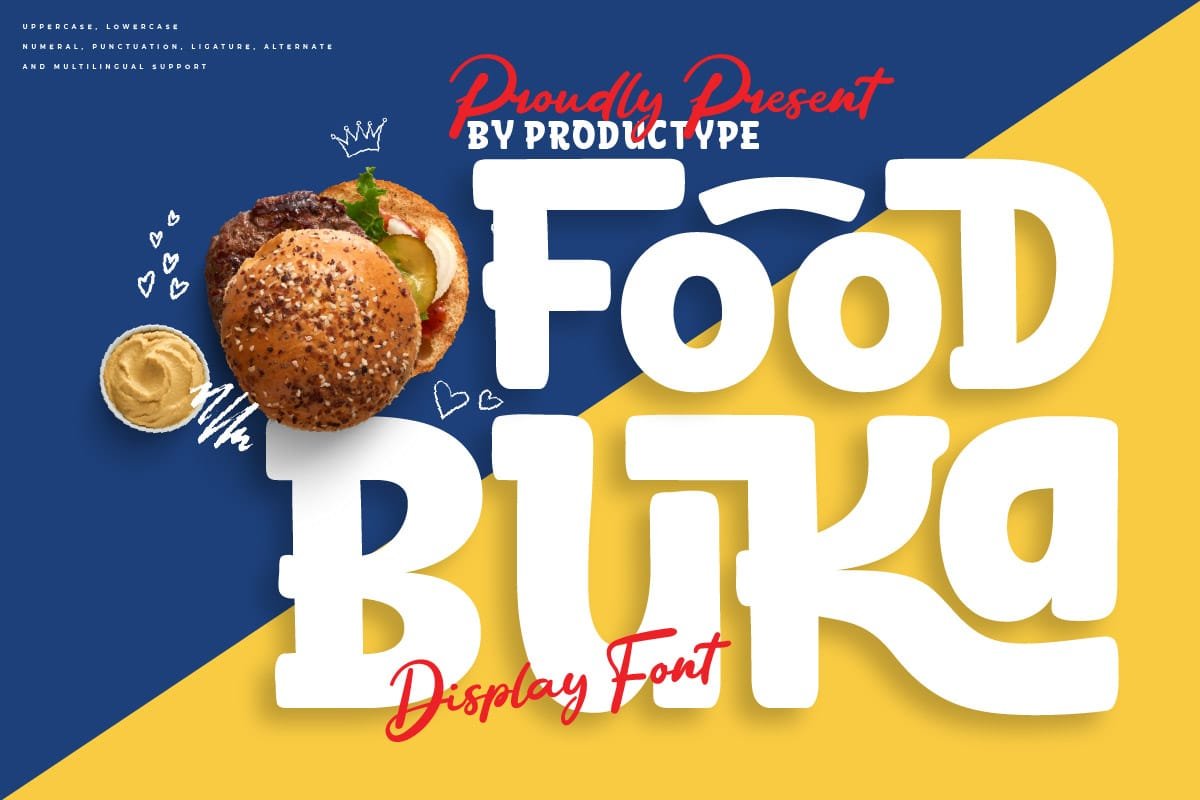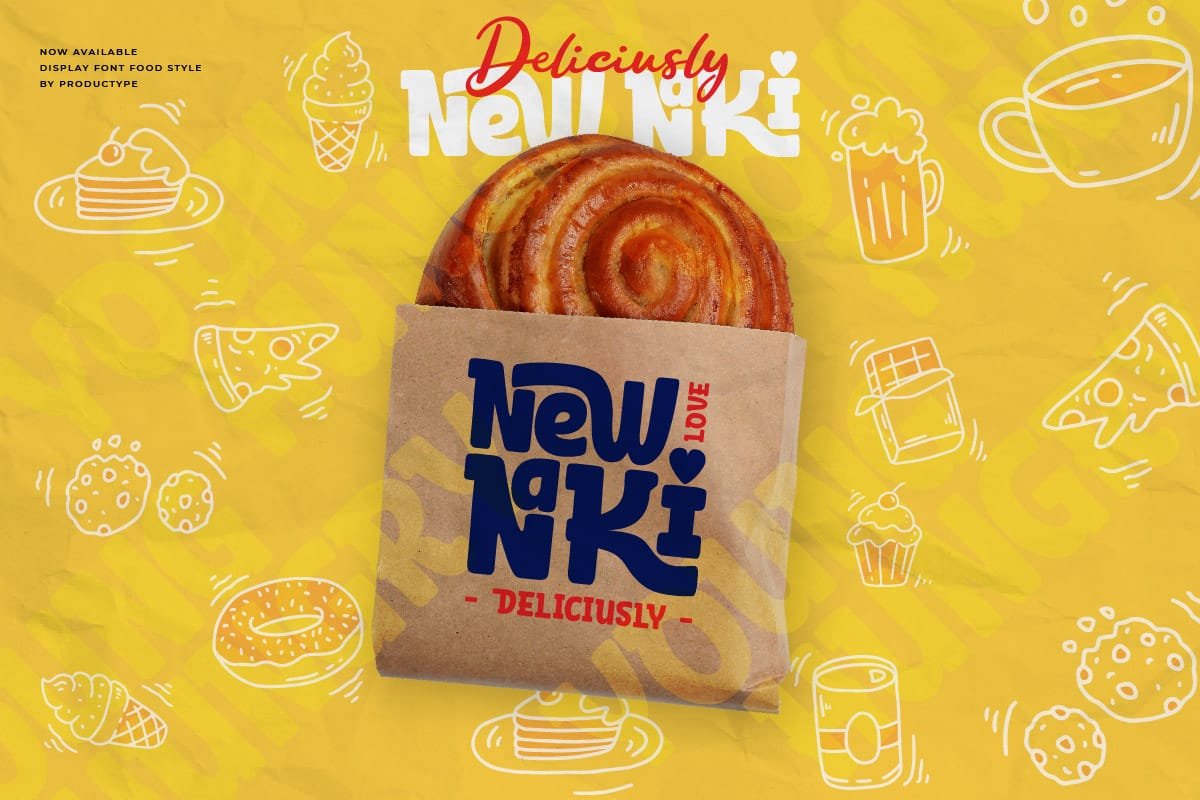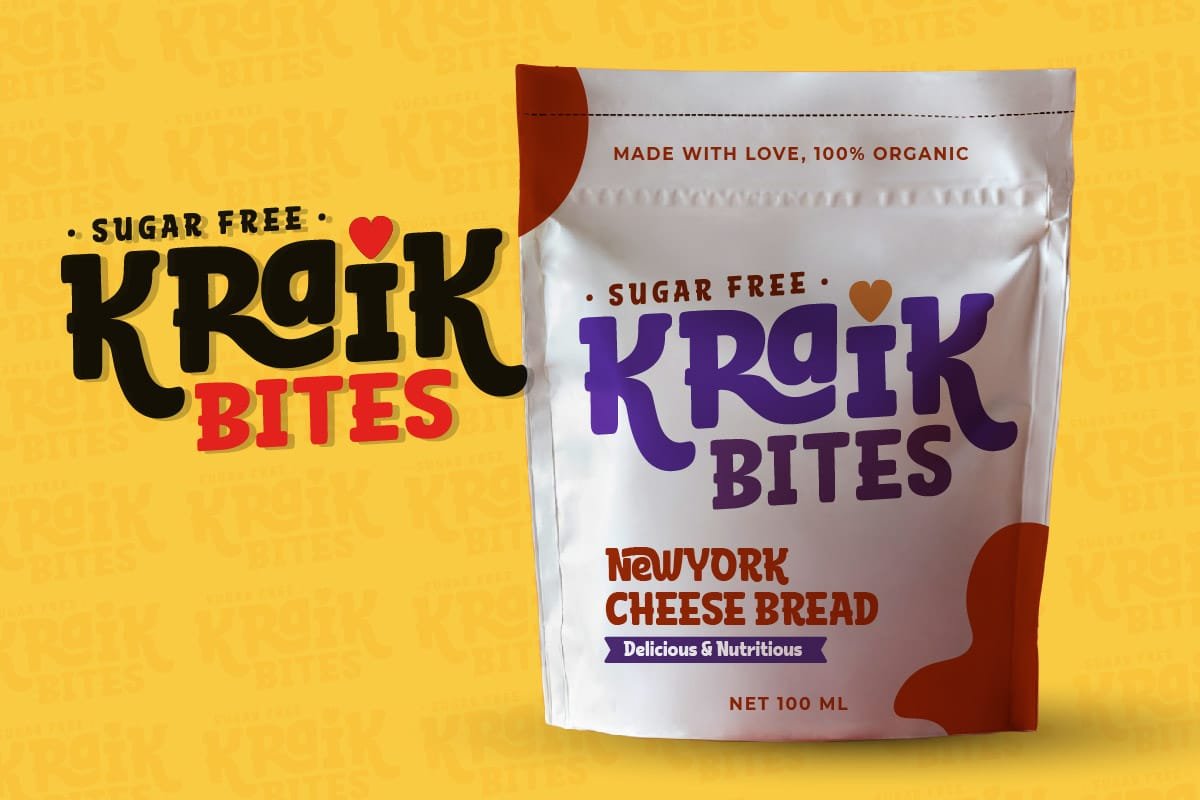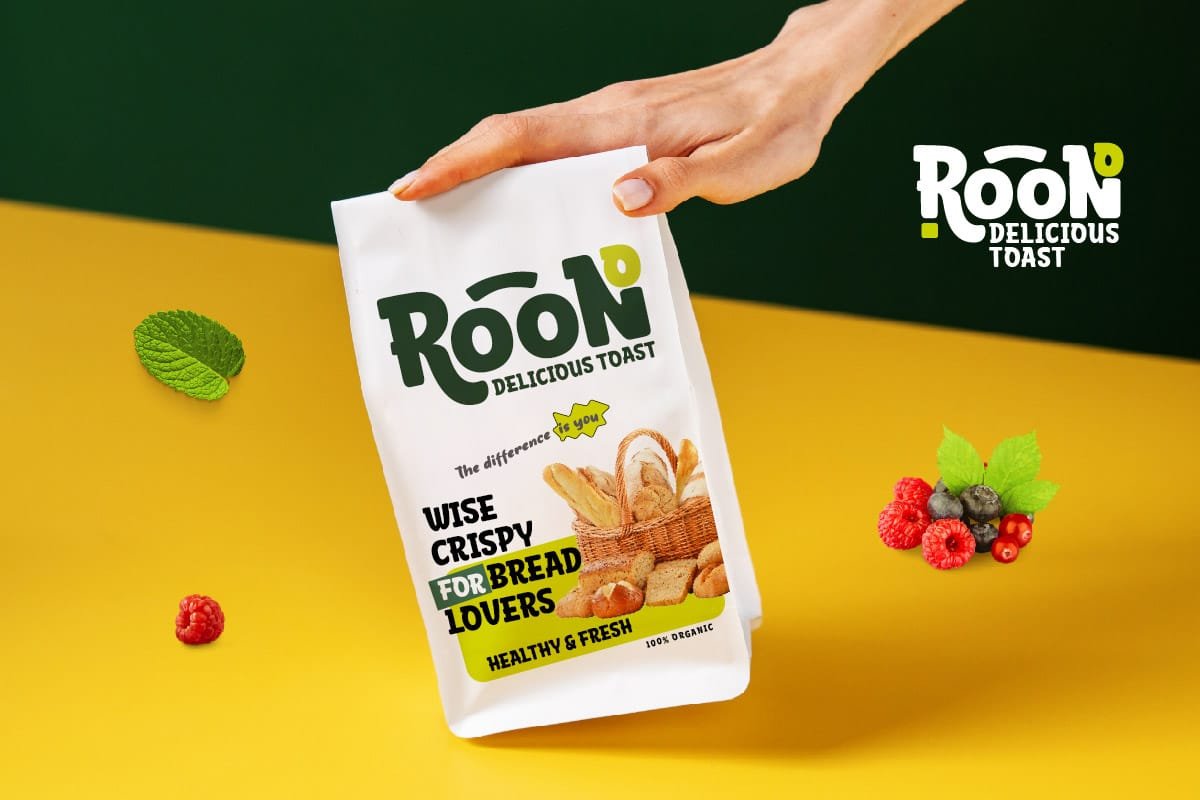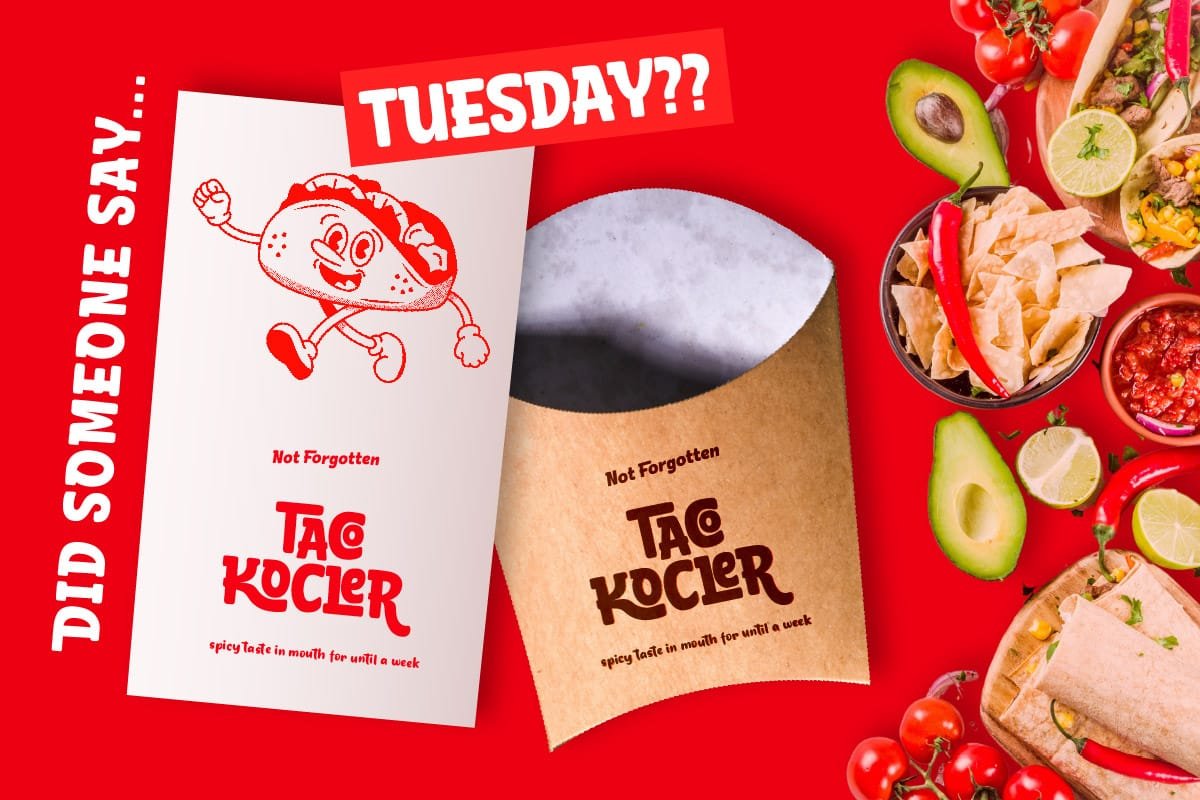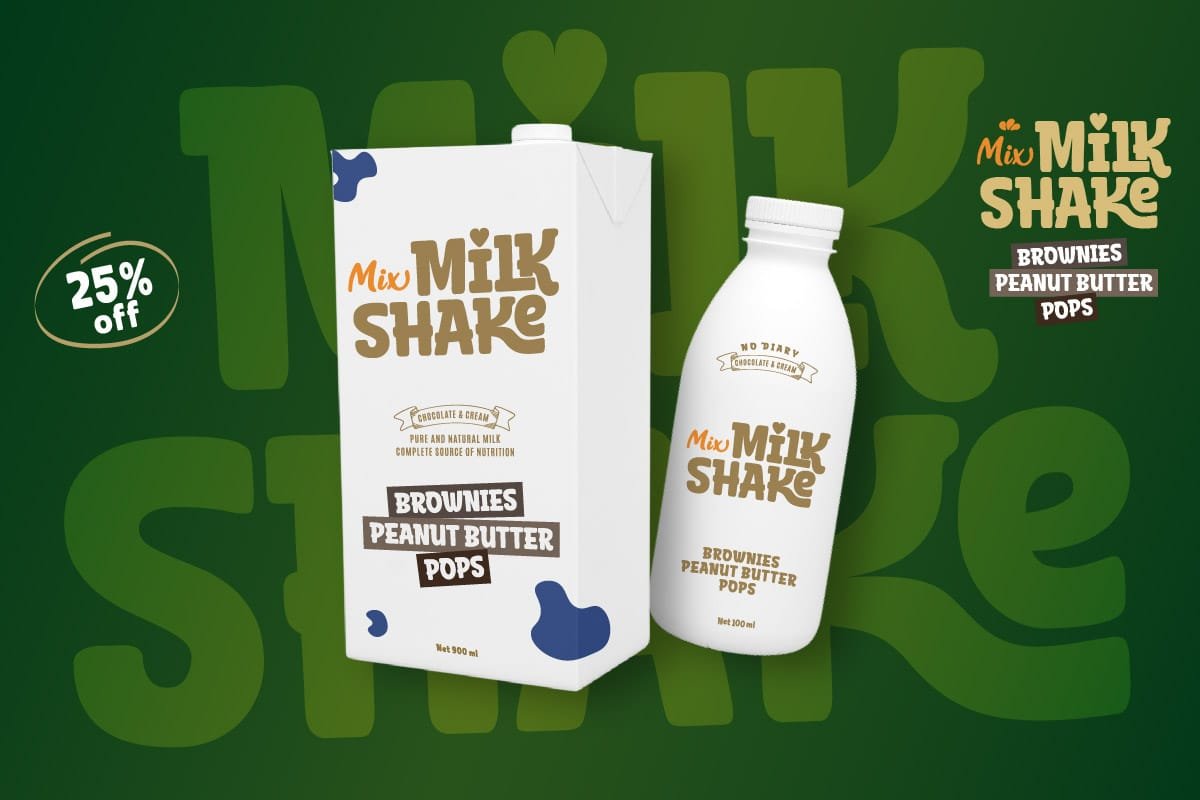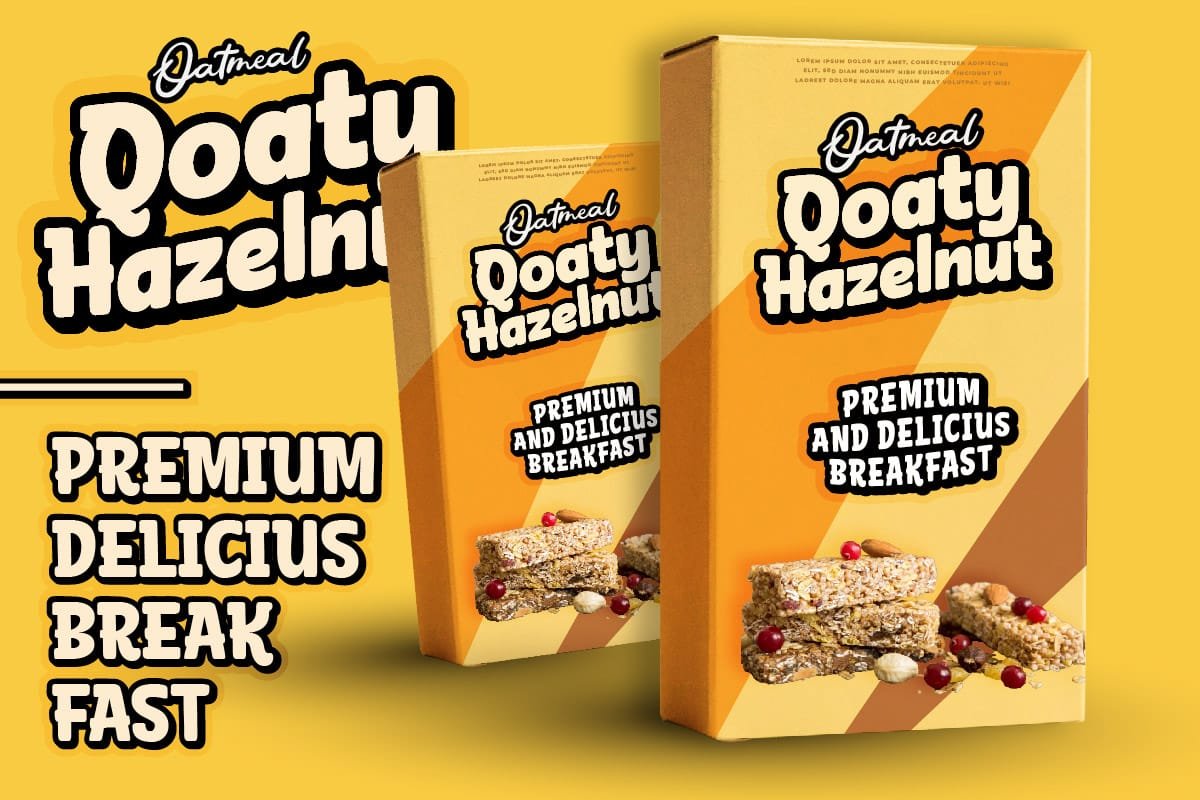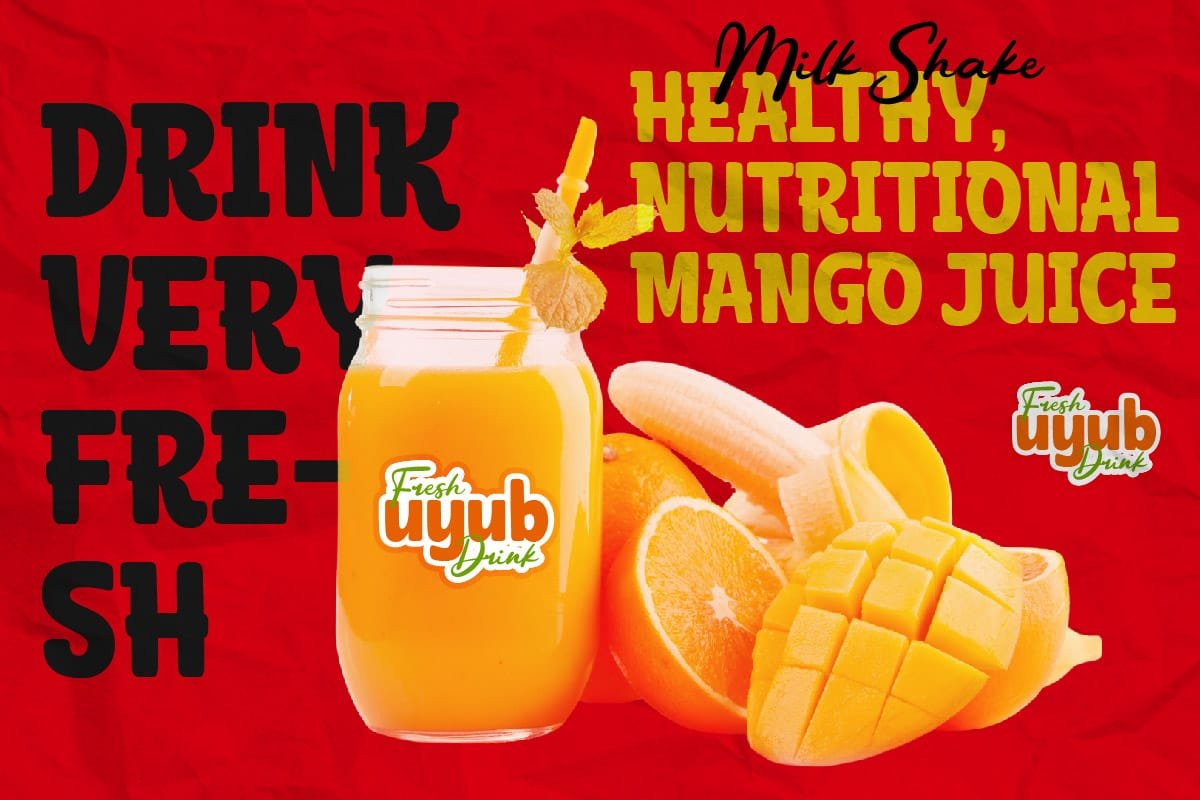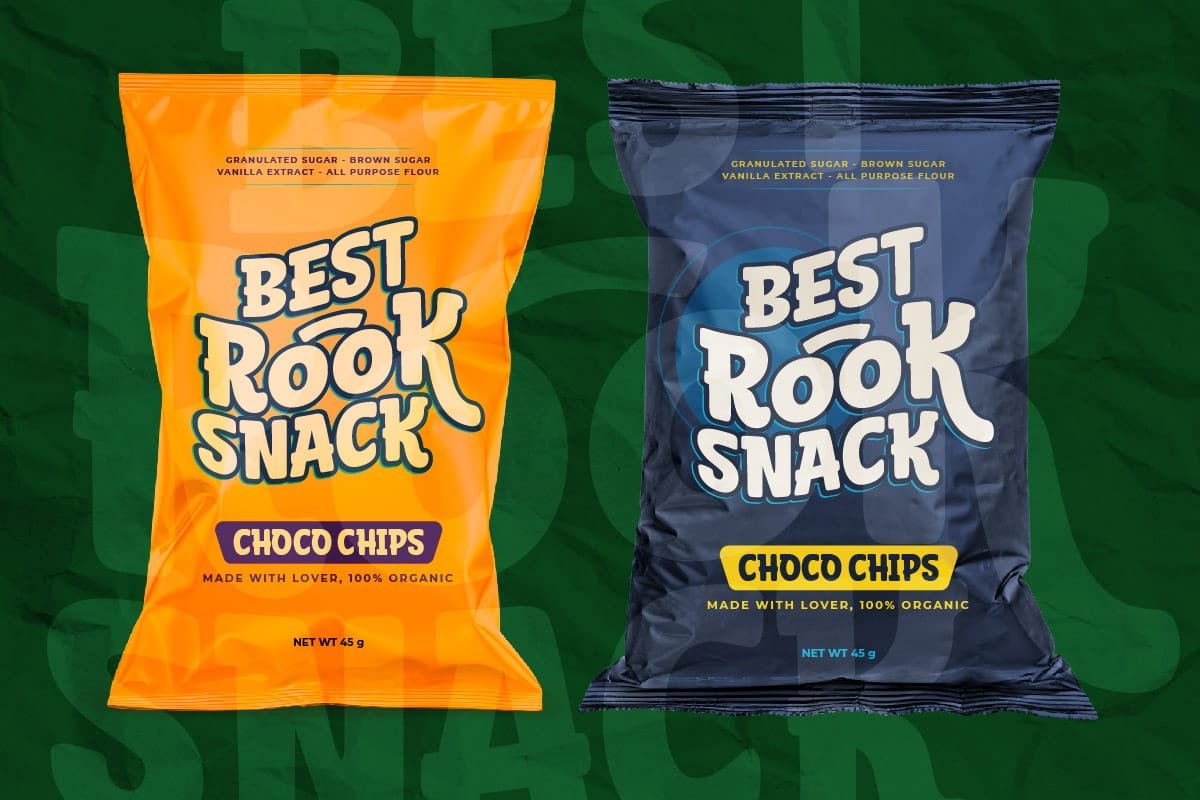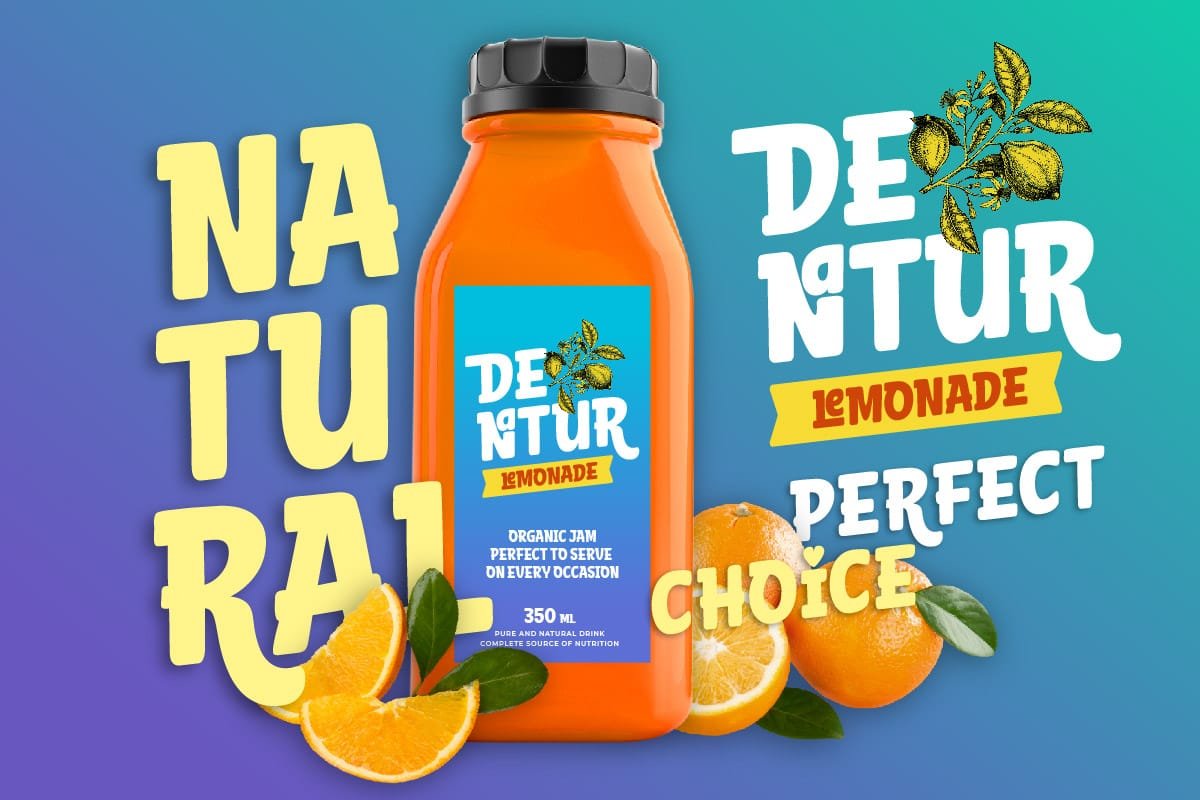
5. Food Buka – Display Font
Food Buka – Display Font
Introducing Food Buka, a bold and characterful display font, designed specifically for food and beverage branding. With its strong and clear shape, Food Buka exudes a delicious and attractive impression, ideal for the food and beverage industry.
This font is the perfect choice for restaurant logos, food product packaging, menus, advertisements, and various other promotional materials.
Bold lines and tempting shapes make Food Buka able to attract attention and arouse appetite. Whether you’re creating a visual identity for a new cafe, designing labels for a beverage product, or creating a compelling advertising campaign, Food Buka provides the professional, evocative touch you need.
Let Food Buka be the secret ingredient in your design recipe, bringing strong visual power and an unforgettable impression to each of your creations.